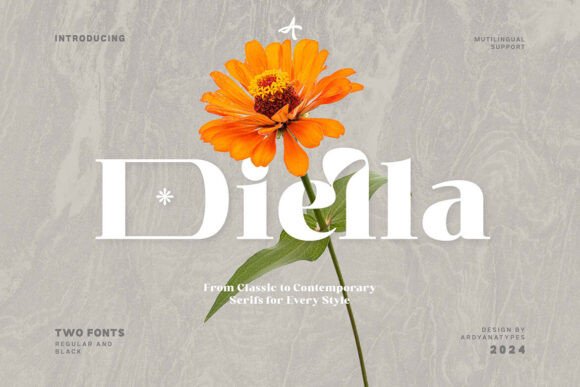
Introducing Diella Font: The Perfect Blend of Classic Elegance and Modern Sophistication
In the world of typography, fonts play a crucial role in conveying the tone and personality of a brand, product, or creative project. With the vast array of fonts available, finding the perfect one that balances elegance and modernity can be a daunting task. However, if you’re looking for a font that seamlessly blends classic sophistication with a contemporary twist, look no further than Diella Font.
What is Diella Font?
Diella is a modern serif font designed with meticulous attention to detail, providing flexibility for a wide range of design needs. This exquisite font combines the timeless charm of classic serif fonts with the sleek, modern aesthetic of contemporary typography, making it an excellent choice for various creative projects.
Key Features of Diella Font
- Classic Elegance: Diella’s serif design pays homage to traditional typography, exuding a sense of sophistication and refinement.
- Modern Twist: The font’s clean lines, subtle curves, and optimized letter spacing give it a fresh, modern look that sets it apart from more traditional serif fonts.
- Flexibility: Diella’s versatile design makes it suitable for a wide range of applications, from branding and editorial projects to logos, invitations, posters, and more.
- Perfect Details: The font’s intricate details, such as carefully crafted serifs and precise letterforms, ensure a high level of legibility and aesthetic appeal.
Use Cases for Diella Font
Diella’s unique blend of classic elegance and modern sophistication makes it an excellent choice for various design projects, including:
- Branding: Establish a strong brand identity with Diella’s distinctive serif design, perfect for luxury brands, fashion labels, and high-end products.
- Editorial Projects: Add a touch of sophistication to magazines, newspapers, and books with Diella’s elegant and readable font.
- Logos: Create a lasting impression with Diella’s unique blend of classic and modern elements, ideal for businesses, startups, and entrepreneurs.
- Invitations: Make a statement with Diella’s elegant font, perfect for formal events, weddings, and other special occasions.
- Posters: Grab attention with Diella’s bold and eye-catching design, suitable for advertising, promotions, and marketing campaigns.
Benefits of Using Diella Font
By incorporating Diella Font into your design projects, you can enjoy several benefits, including:
- Unique Visual Identity: Diella’s distinctive design helps you stand out from the crowd and establish a strong visual identity.
- Improved Legibility: The font’s careful attention to detail and optimized letter spacing ensure excellent readability, even at smaller font sizes.
- Flexibility: Diella’s versatile design allows you to use it across various platforms, from print to digital media.
- Time-Saving: With Diella, you can save time and effort in finding the perfect font, as it offers a comprehensive solution for various design needs.
Tips for Using Diella Font Effectively
To get the most out of Diella Font, consider the following tips:
- Pair with Other Fonts: Combine Diella with complementary fonts to create a harmonious and visually appealing design.
- Experiment with Font Sizes: Play with different font sizes to create visual hierarchy and emphasize key elements in your design.
- Pay Attention to Line Spacing: Adjust line spacing to optimize readability and ensure a smooth flow of text.
- Use Diella’s Variations: Take advantage of Diella’s font variations, such as bold, italic, and light weights, to add depth and contrast to your design.
In conclusion, Diella Font is an exceptional choice for designers seeking a modern serif font that blends classic elegance with a contemporary twist. With its meticulous attention to detail, flexibility, and versatility, Diella is perfect for a wide range of design projects, from branding and editorial projects to logos, invitations, and posters. By incorporating Diella into your design workflow, you can create stunning visual identities that leave a lasting impression.